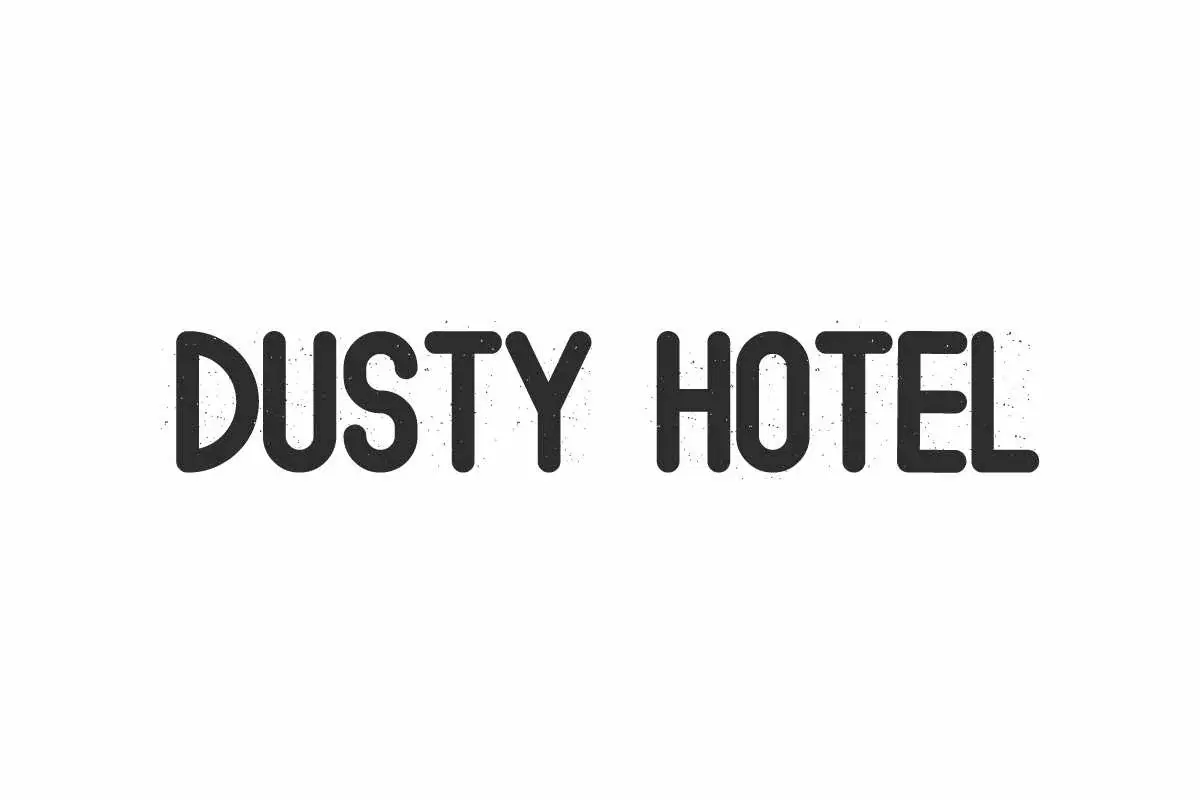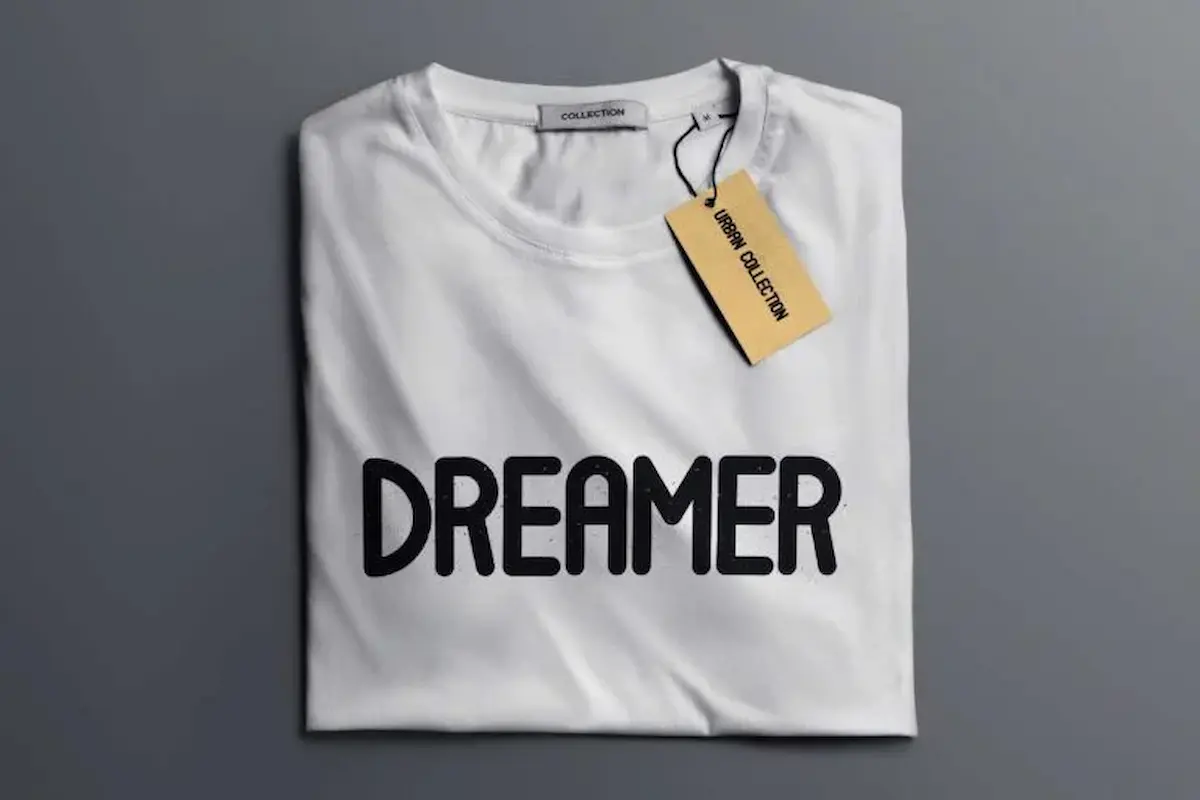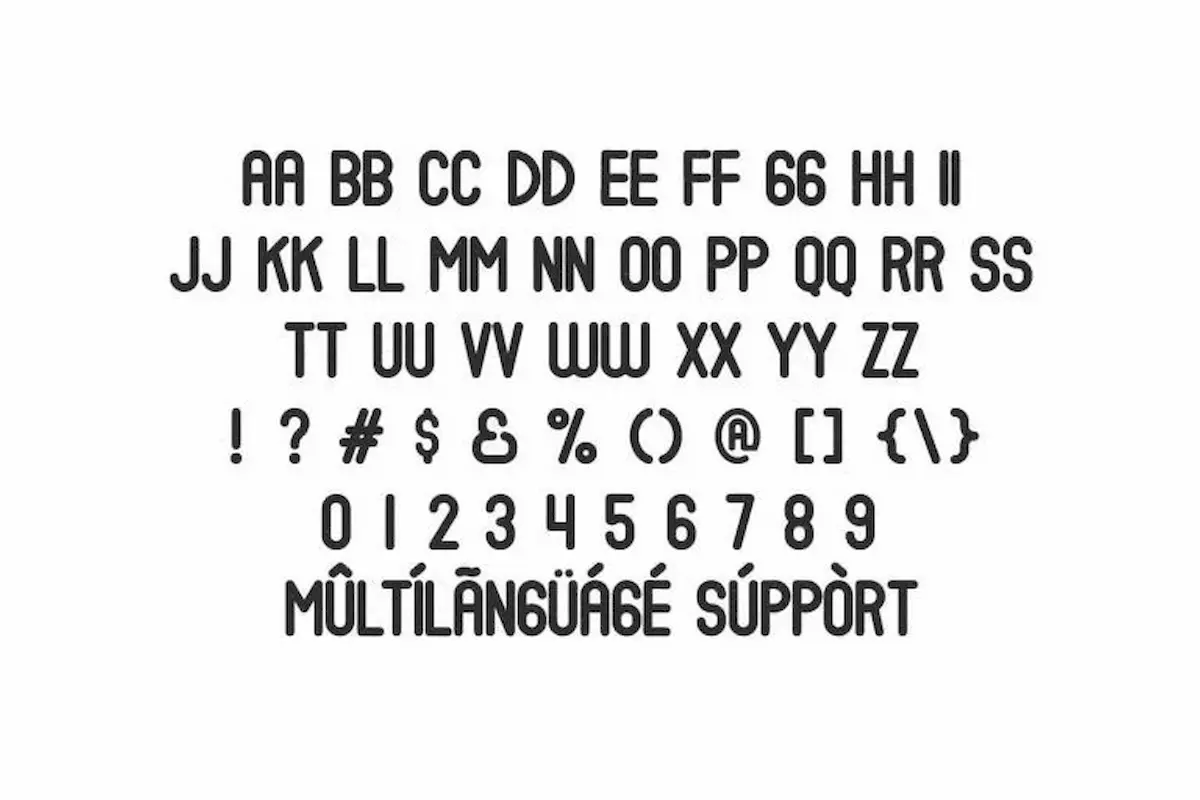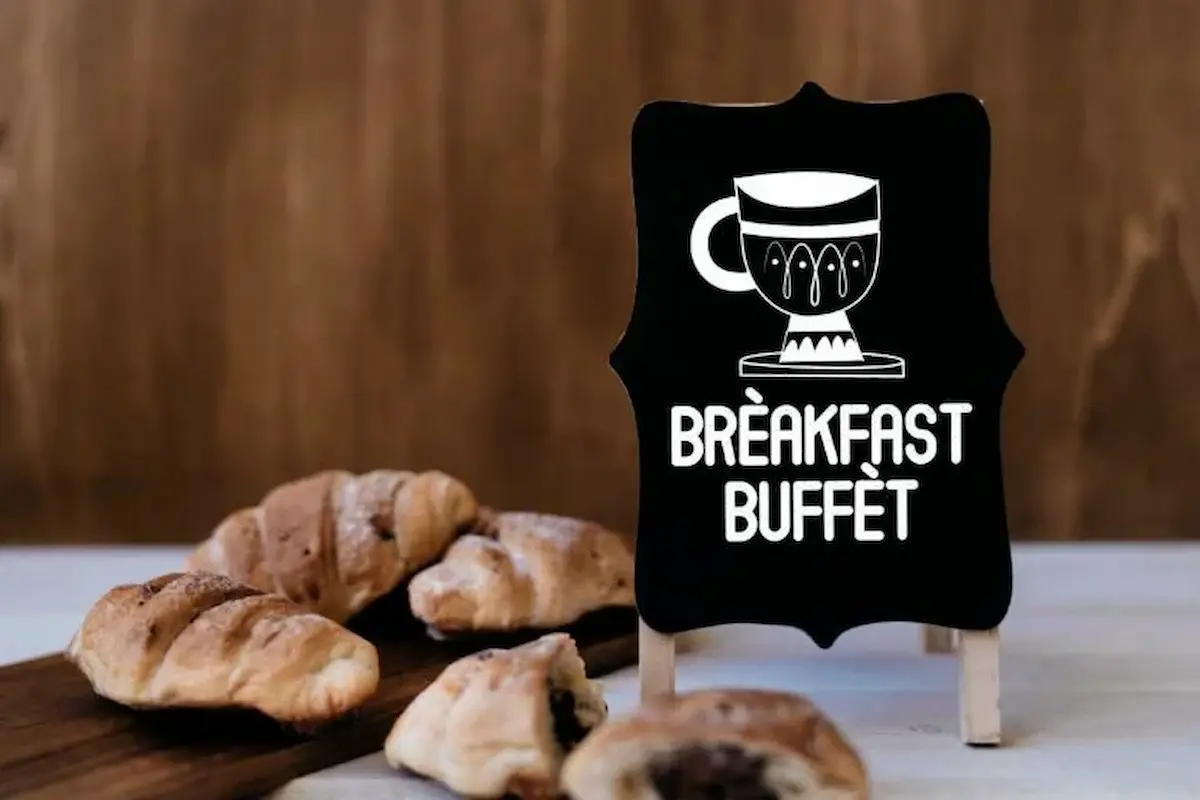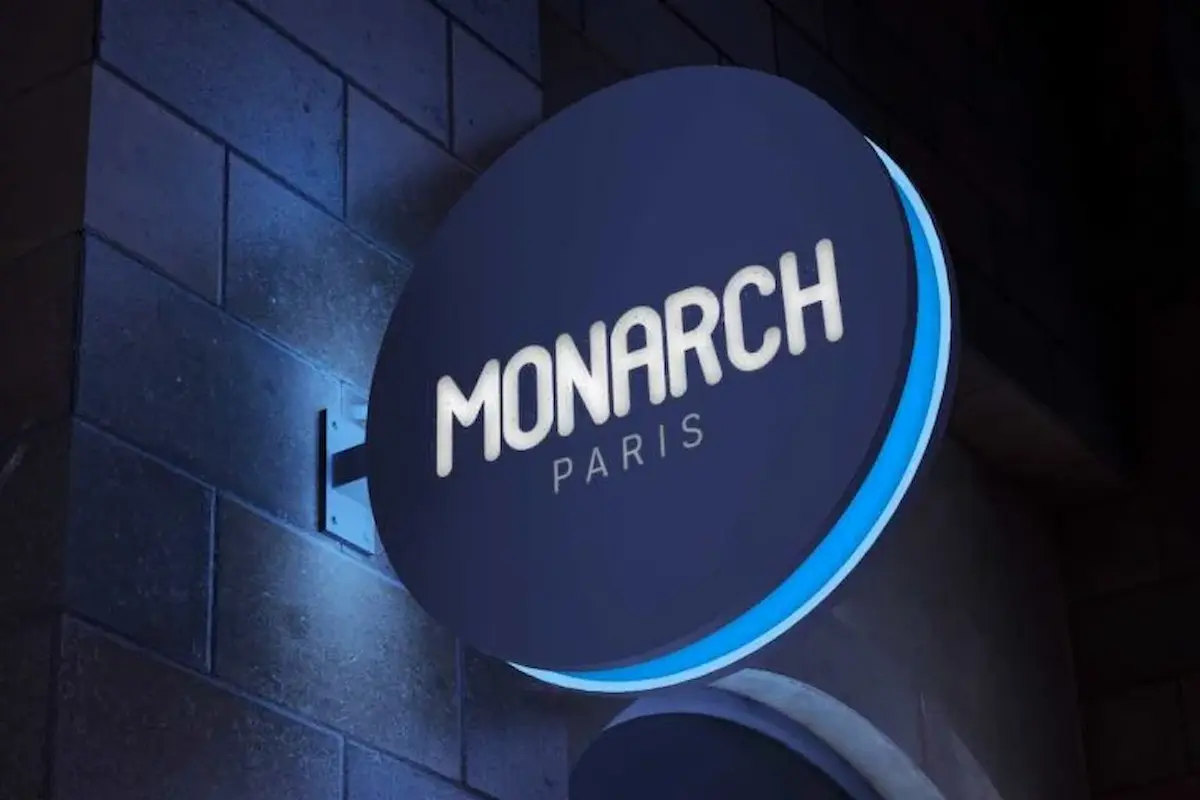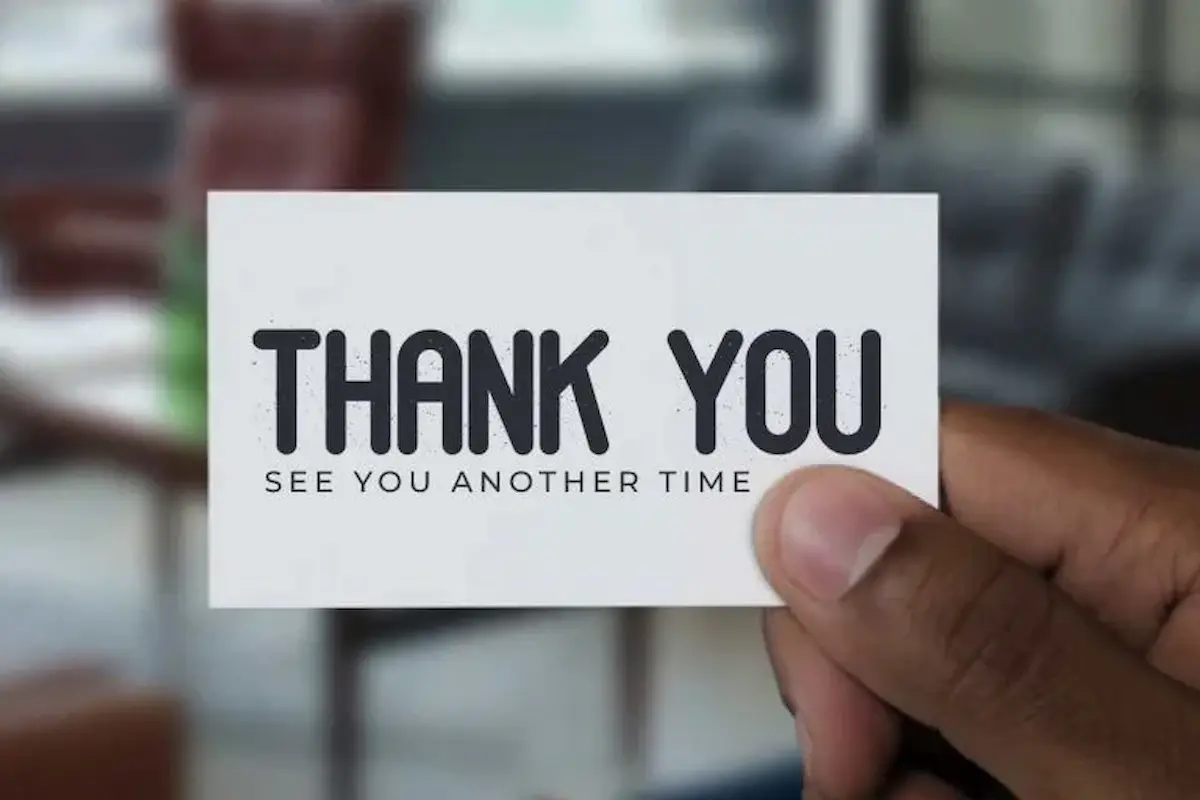
Dusty Hotel Font
Dusty Hotel Font is a rustic sans serif font by NihStudio, made in 2021. Dusty Hotel Font will be great for fashion, cafe, magazine, casual or special projects.
Dusty Hotel Font is a rustic sans serif display font family designs made by NihStudio. Please try the font by typing your own text below. Note that the test font below is a demo file, so some specimens/ characters will not show up.
Dusty Hotel Font comes with unique dust effect on the letters. After purchase, On the zip package you will get :
branding, logo, stationery, business card, signage, flyer, brochure etc. Dusty Hotel Font comes with unique and exclusive letter style to make it standout and uniquely different.